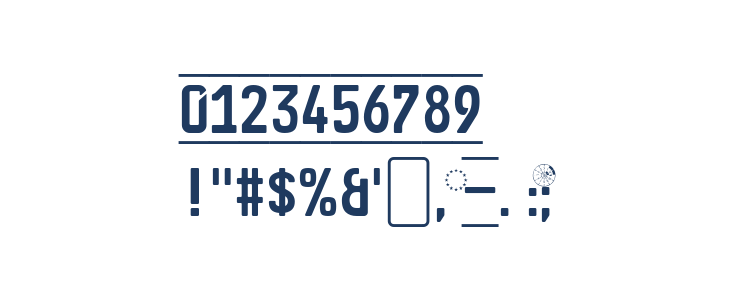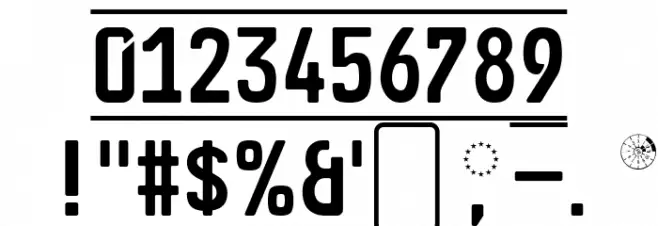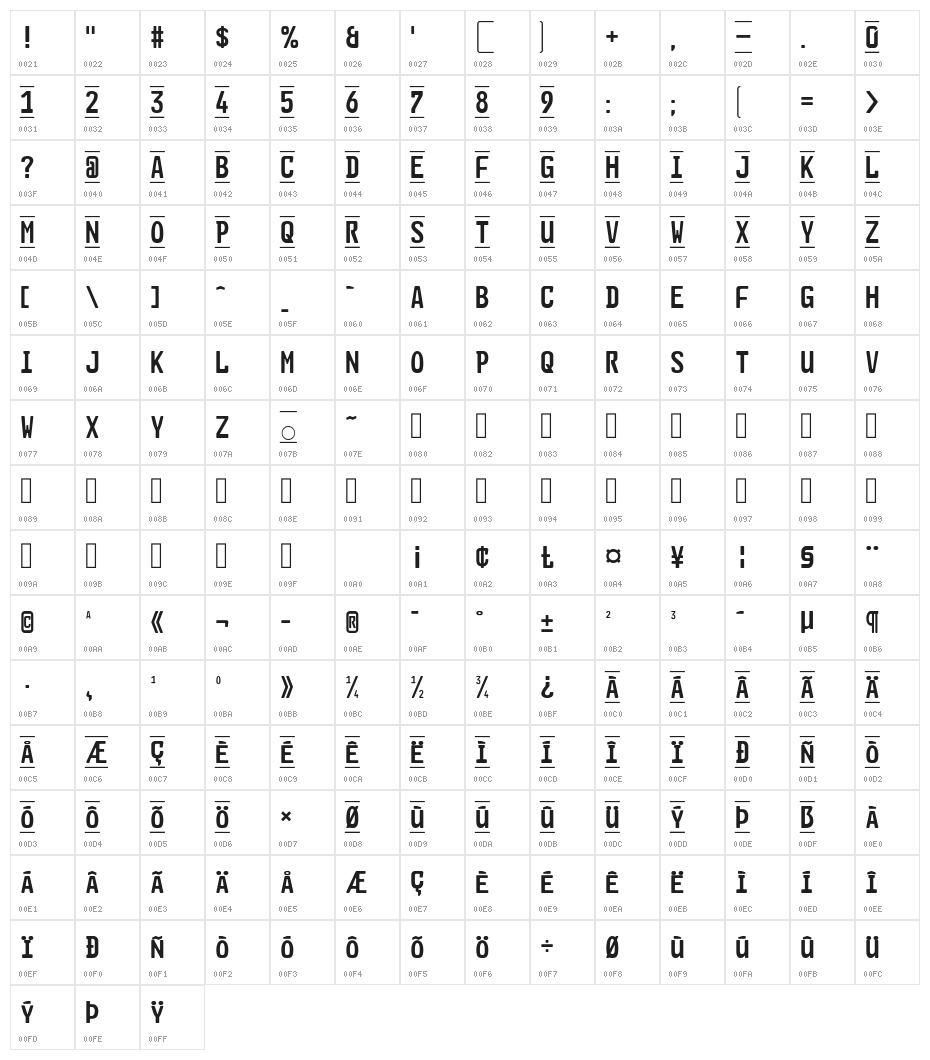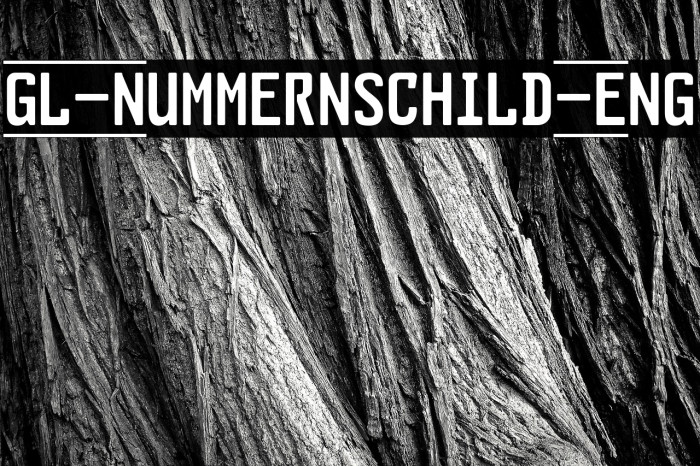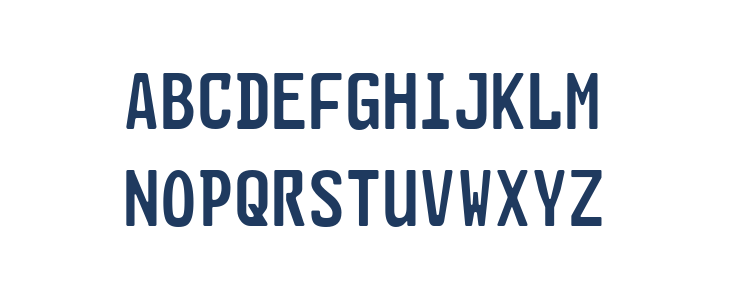
GL-Nummernschild-Eng Font
GL-Nummernschild-Eng Description
This font features a bold, geometric design with a strong emphasis on vertical and horizontal lines, creating a structured and industrial appearance. The characters are uniform in width, contributing to a monospaced feel, although they are not strictly monospaced. The uppercase letters are particularly striking, with a blocky and robust style that commands attention. The numerals and special characters maintain this boldness, ensuring consistency across all glyphs. The font's design is reminiscent of vintage industrial signage, making it ideal for projects that require a strong, authoritative presence.
| Overall Style | Vintage, Industrial |
| Use Case | Signage, Branding, Posters |
| Proposed Projects | Ideal for signage, posters, branding, and any project requiring a strong, industrial aesthetic. |